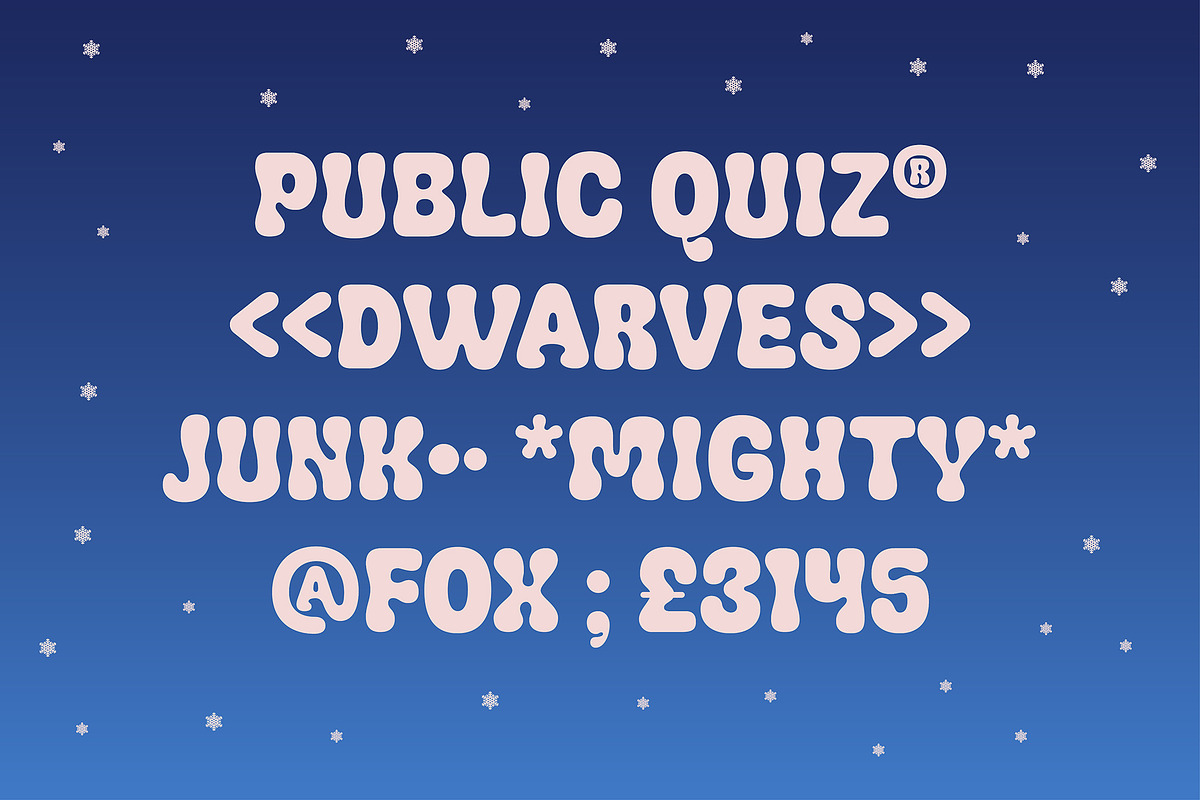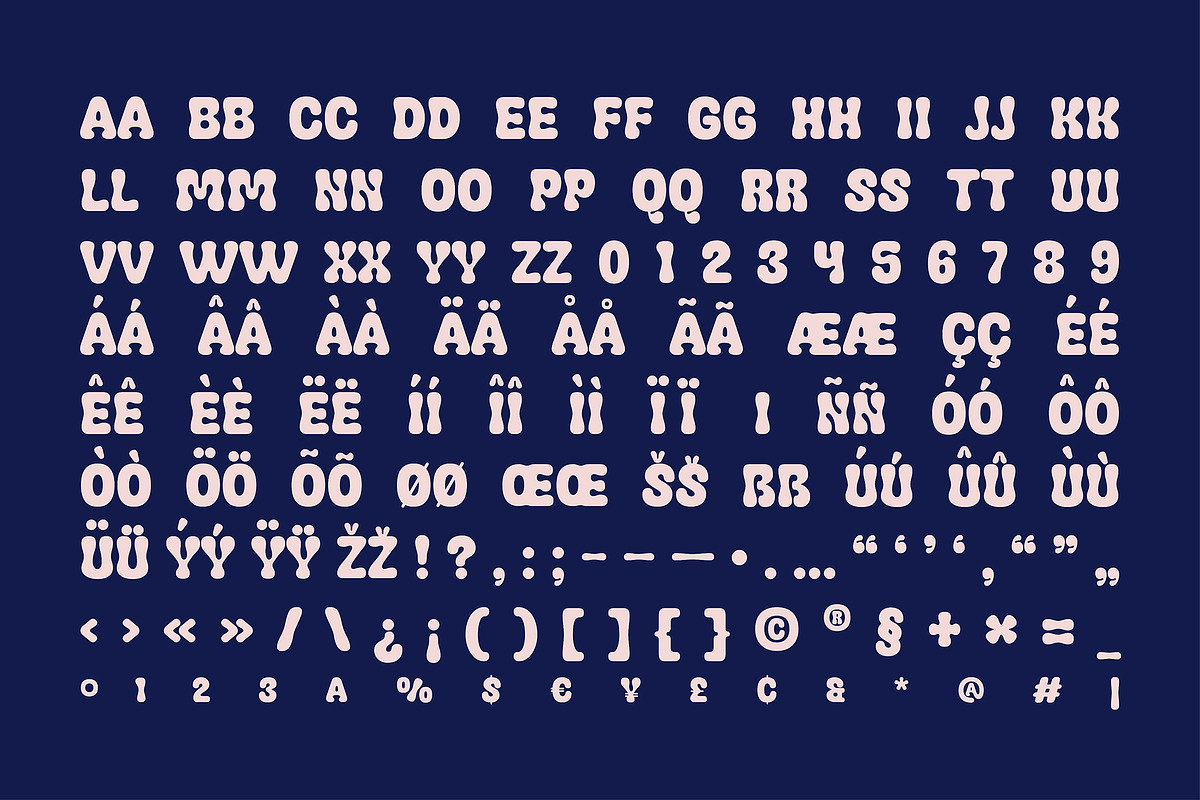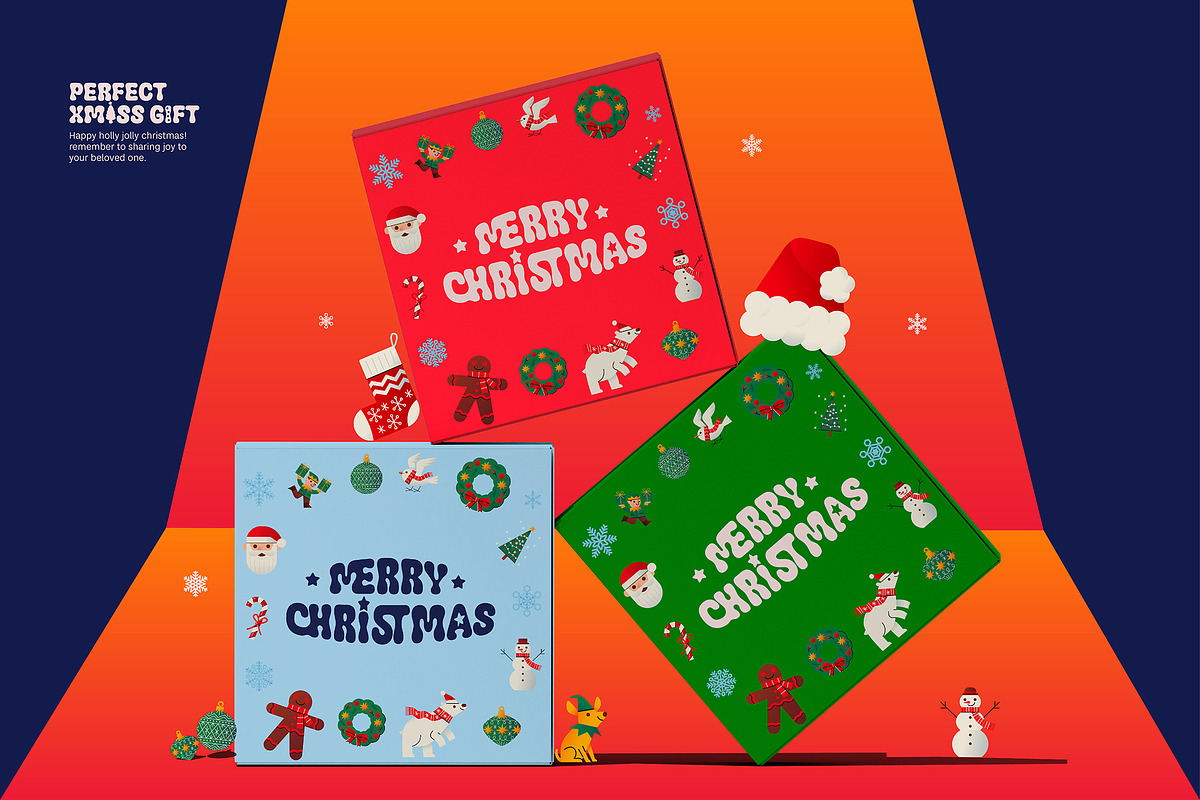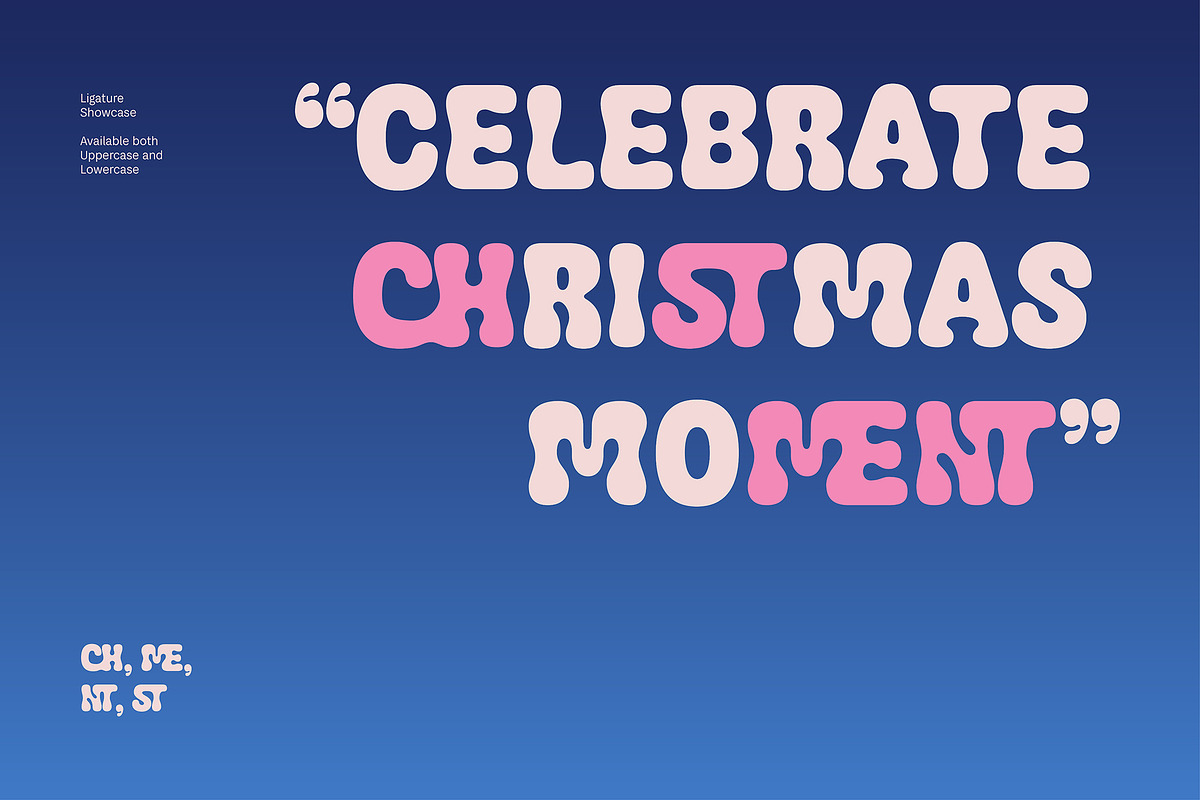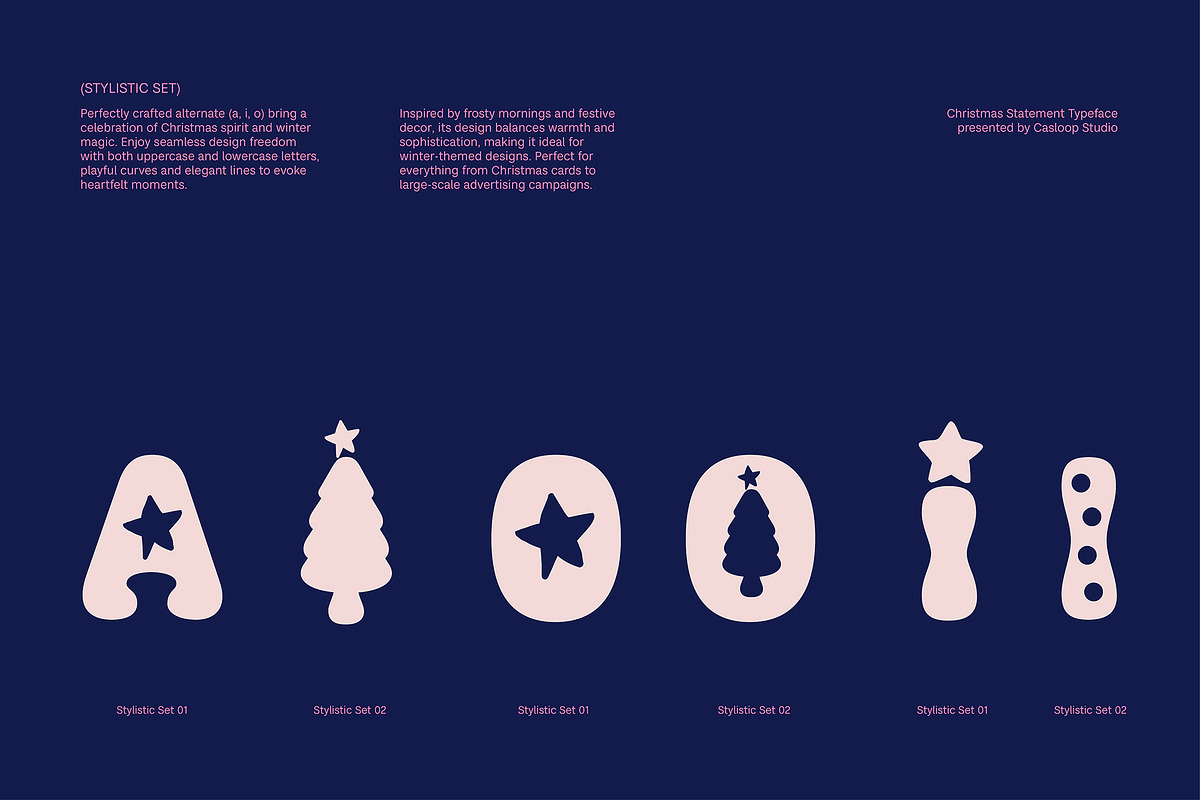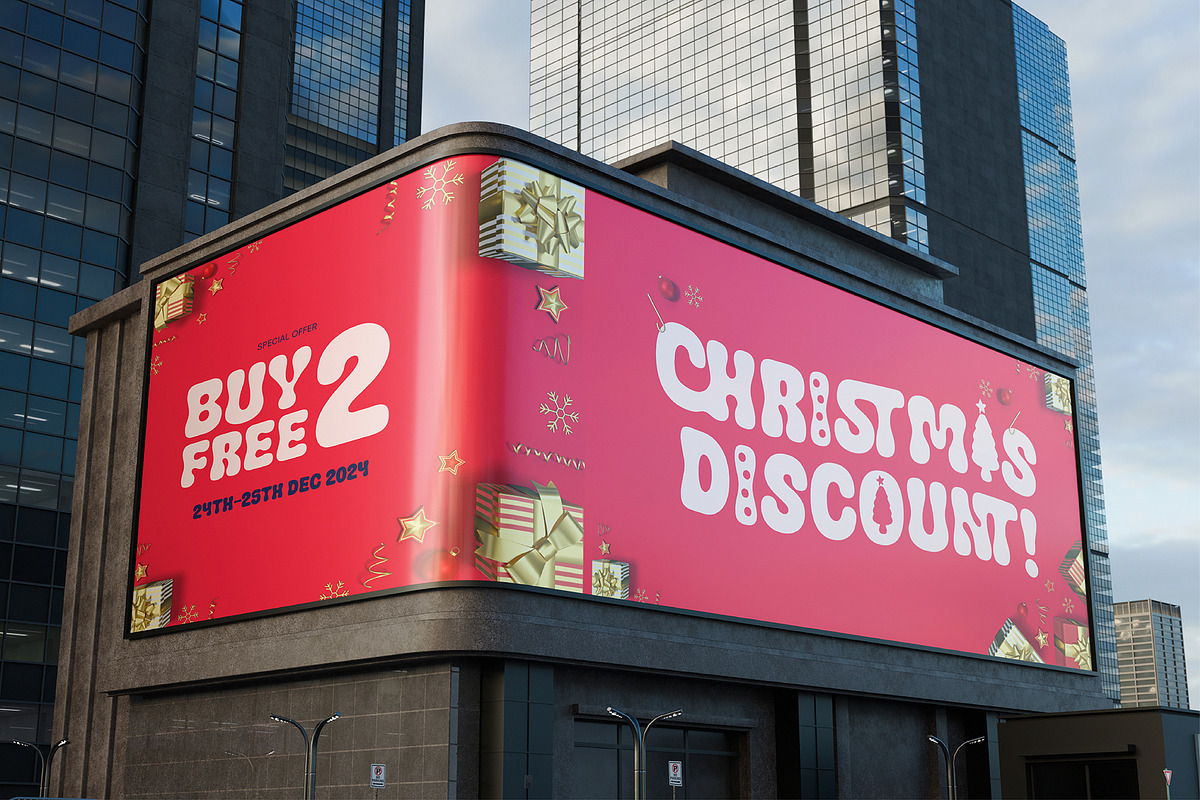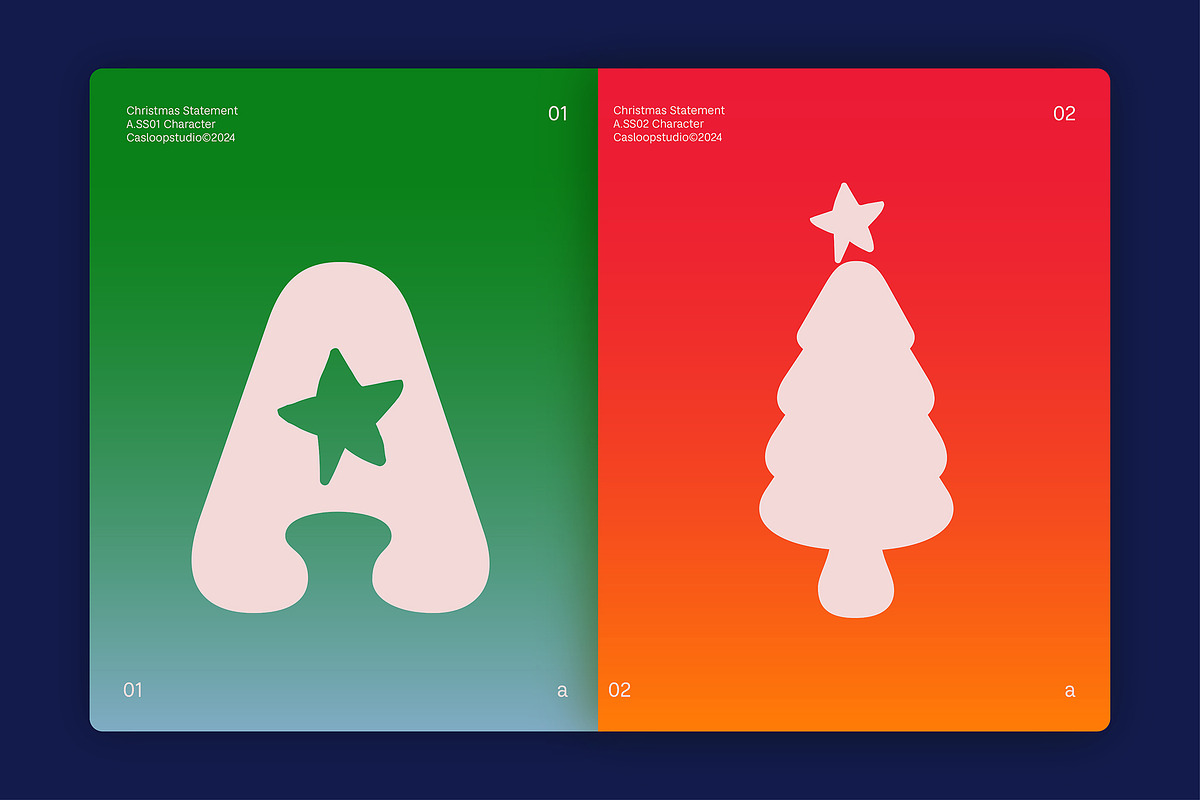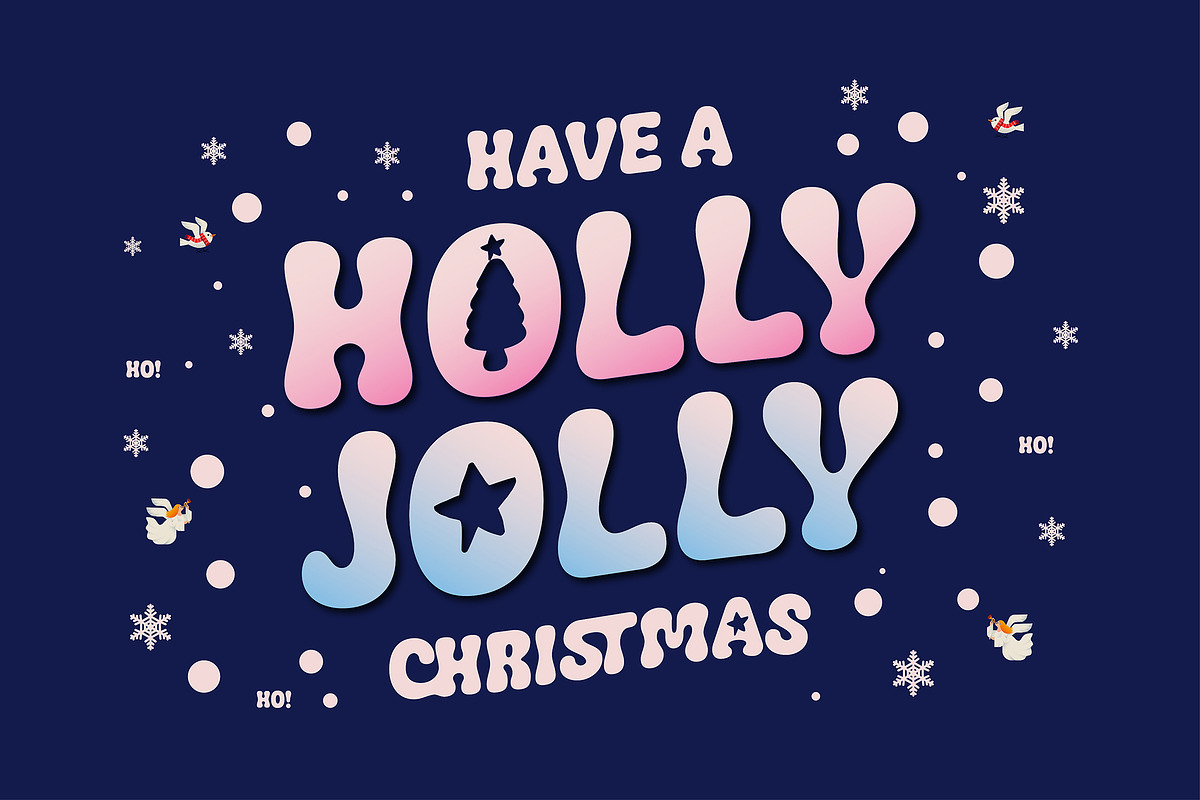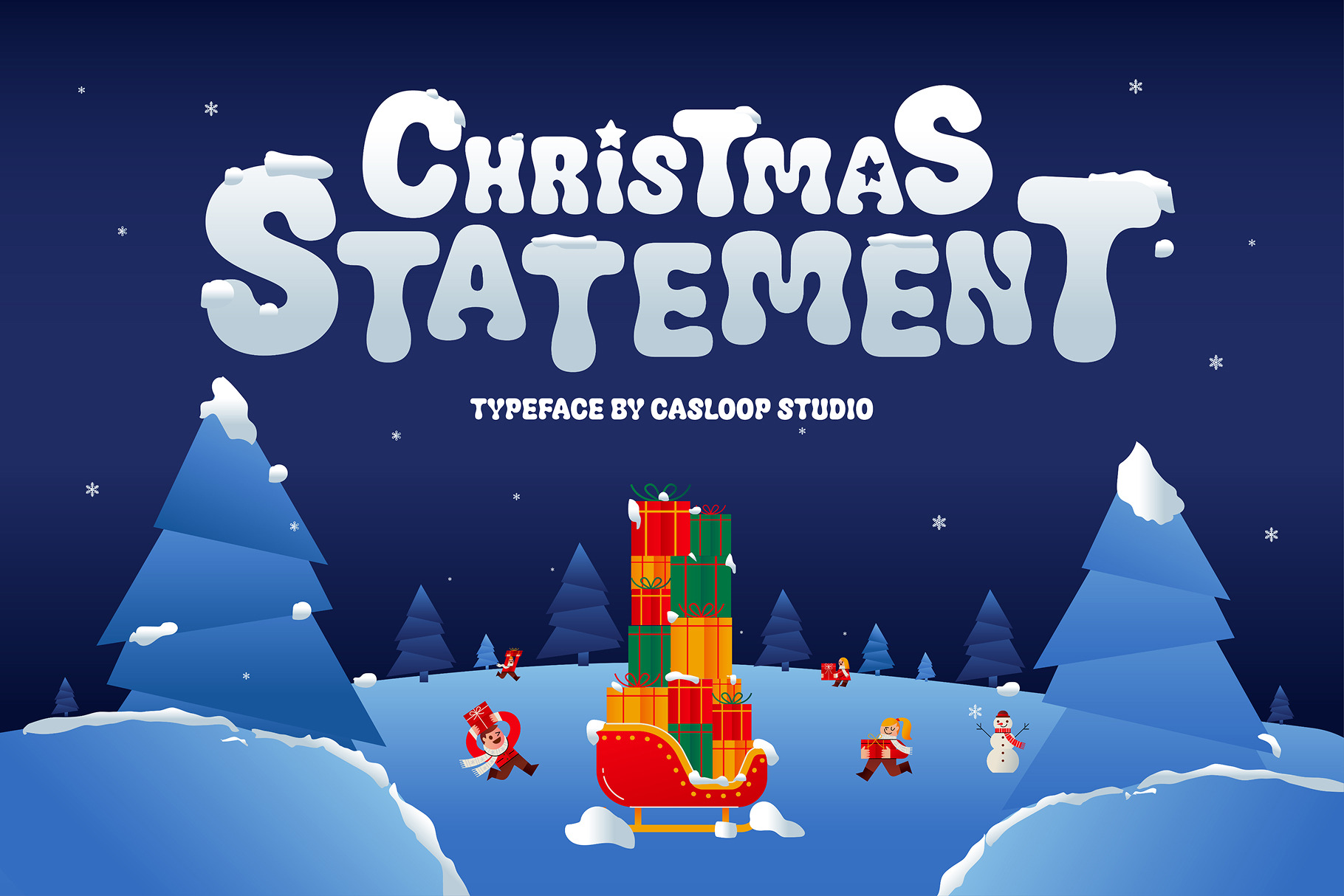
Christmas Statement – Bubble Font
Christmas Statement is a playful bubble typeface with rounded, fluid forms and a groovy rhythm that gives every word a soft yet expressive personality. Its chunky letterforms feel cheerful and approachable, while the stylistic alternates add extra character through festive star, Christmas tree, and decorative shapes. Perfect for Christmas campaigns, holiday cards, kids’ designs, gift packaging, posters, seasonal branding, social media graphics, and celebratory headlines. Recommended pairing with Fredoka, Baloo 2, Nunito, Cooper Black, ITC Souvenir, Genty.
Allcaps,
Numbers and punctuation,
Ligatures & Stylistic Alternates Characters,
Multilingual Support: Bosnian, Catalan, Czech, Danish, German, English, Spanish, Estonian, Finnish, French, Irish, Croatian, Hungarian, Icelandic, Italian, Lithuanian, Latvian, Dutch, Norwegian, Polish, Portuguese, Romanian, Slovak, Slovenian, Albanian, Swedish, Turkish.